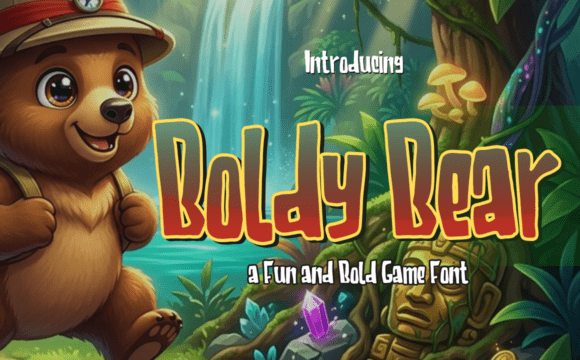
Meet the Font that Brings Adventure to Life
Have you ever been stuck in a design rut, searching for that one font that sparks imagination and transports your audience to a world of wonder? For designers, it’s that elusive moment when a font clicks – and we’re about to share it with you.
Introducing the Boldy Bear Font, a high-energy display typeface that embodies a playful, pioneering spirit. This font is the perfect companion for your next project, whether you’re designing an independent toy brand, a children’s adventure book title, or a high-impact social media header. With its unique blend of classic and modern elements, the Boldy Bear Font is the ultimate choice for designers seeking to create engaging, attention-grabbing designs that leave a lasting impression.
- Unique Characteristics: The Boldy Bear Font features a distinctive, playful design with bold lines and rounded edges, making it perfect for children’s books, advertising, and other creative projects.
Boldy Bear Font Review
I recently had the chance to work with the Boldy Bear font, and I must say it’s a mixed bag. On one hand, here are some things that work well: ✨
- Unique character design: The Boldy Bear font has a quirky, playful feel that can add a lot of character to your designs.
- Good legibility: Despite its bold appearance, the font is surprisingly easy to read, even at smaller sizes.
- Fun usage possibilities: The font’s playful nature makes it perfect for children’s books, games, or other projects where a lighthearted tone is desired.
- May not be suitable for formal projects: The font’s playful nature may not be suitable for more formal projects, such as business reports or academic papers.
- Limited language support: The font may not support all languages, which can be a limitation for projects that require multilingual support.
Overall, I think the Boldy Bear font is a great choice for projects that need a playful, lighthearted tone. Just be aware of its limitations, and use it wisely.
Tips for Getting the Most Out of Boldy Bear Font
Use Boldy Bear Font for headings and titles to create a bold and playful look.
Pair Boldy Bear Font with a clean and simple font for body text to create a visually appealing contrast.
Experiment with different font sizes and styles to create a unique and eye-catching design.
Boldy Bear Font is perfect for:
Children’s books and educational materials.
Marketing and advertising materials that require a playful and attention-grabbing design.
Wedding invitations and party decorations that need a fun and festive touch.
Alternatives to Boldy Bear Font
Great Vibes Font is a modern, elegant script font suitable for creative projects, such as wedding invitations, posters, and greeting cards. It is more refined and sophisticated compared to Boldy Bear Font, making it ideal for formal events or high-end branding.
Pacifico Font is a beautiful, cursive font inspired by the Pacific Ocean. It is perfect for beach-themed designs, travel brochures, and outdoor-related projects. While it shares some similarities with Boldy Bear Font in terms of its casual and playful feel, Pacifico is more relaxed and laid-back.